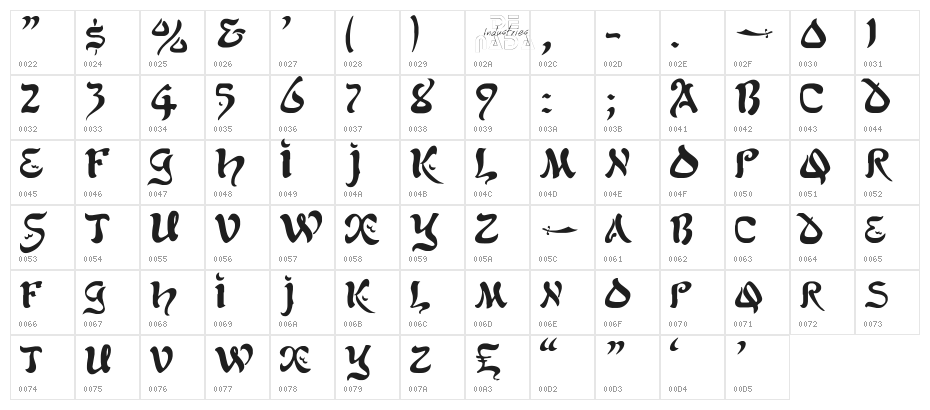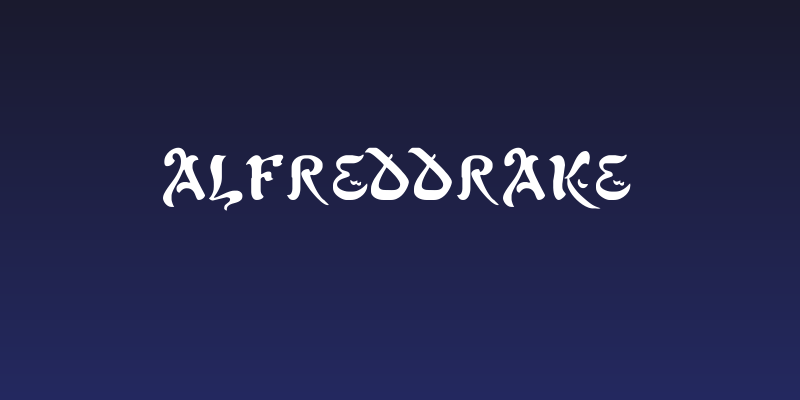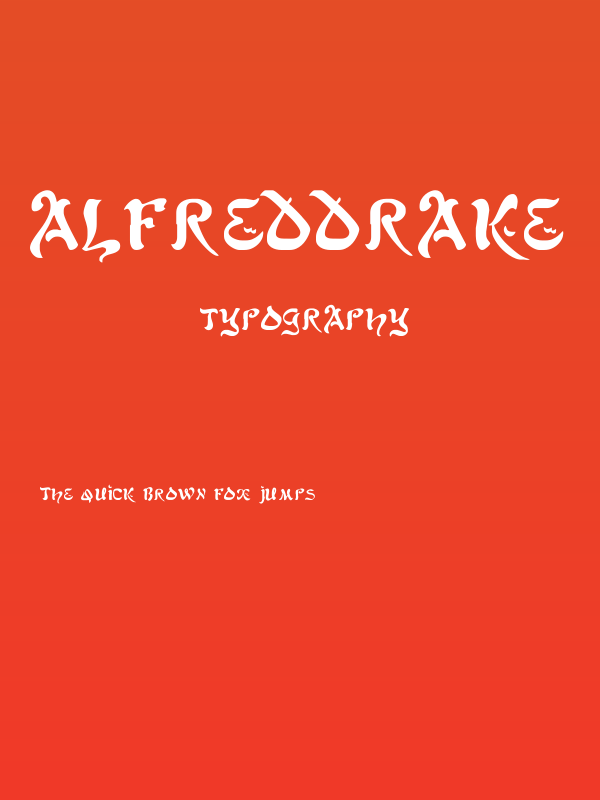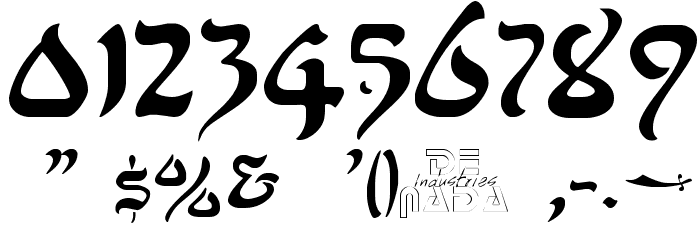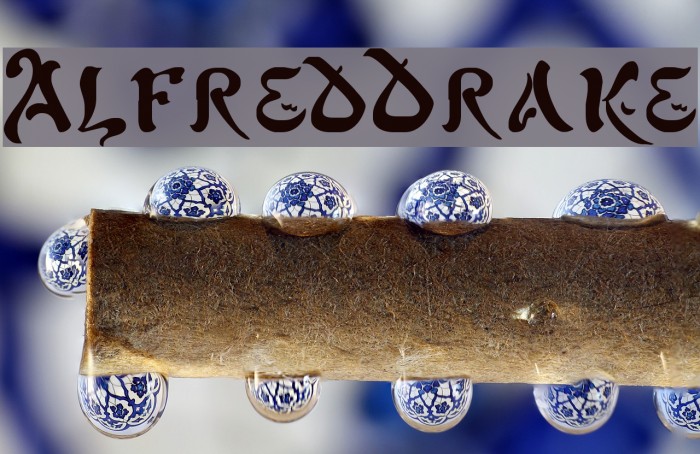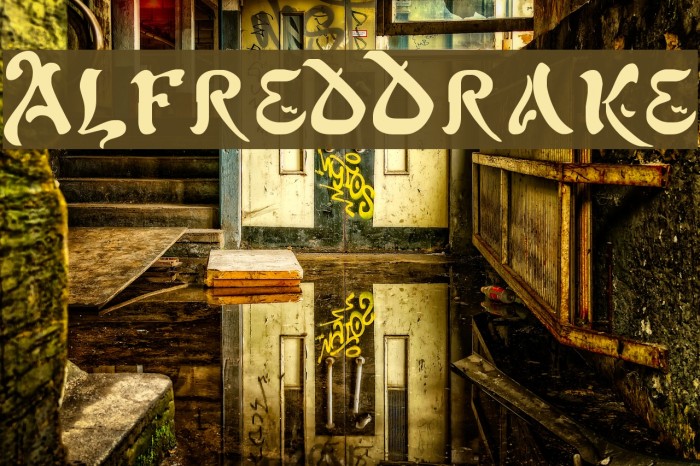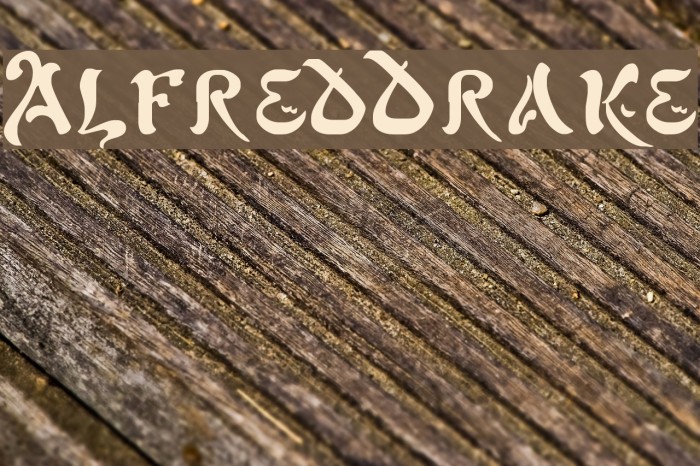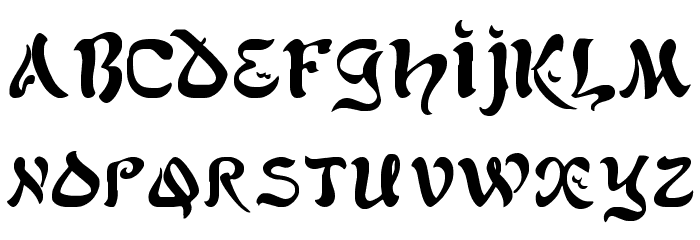
AlfredDrake Font
AlfredDrake Description
This font features a bold and dramatic style with a distinct calligraphic influence. The characters are characterized by thick, sweeping strokes and sharp, angular edges that give it a dynamic and energetic appearance. The uppercase letters are particularly ornate, with flourishes and embellishments that add a sense of movement and flair. The lowercase letters maintain the same boldness but are slightly more restrained in their design. The numerals are equally bold, with unique shapes that complement the overall aesthetic. Special characters are creatively designed, maintaining the font's cohesive style. This font is ideal for projects that require a strong visual impact and a touch of elegance.
| Use Case | Logos, Headlines, Posters |
| Proposed Projects | Ideal for branding, posters, album covers, and any design requiring a strong visual impact. |